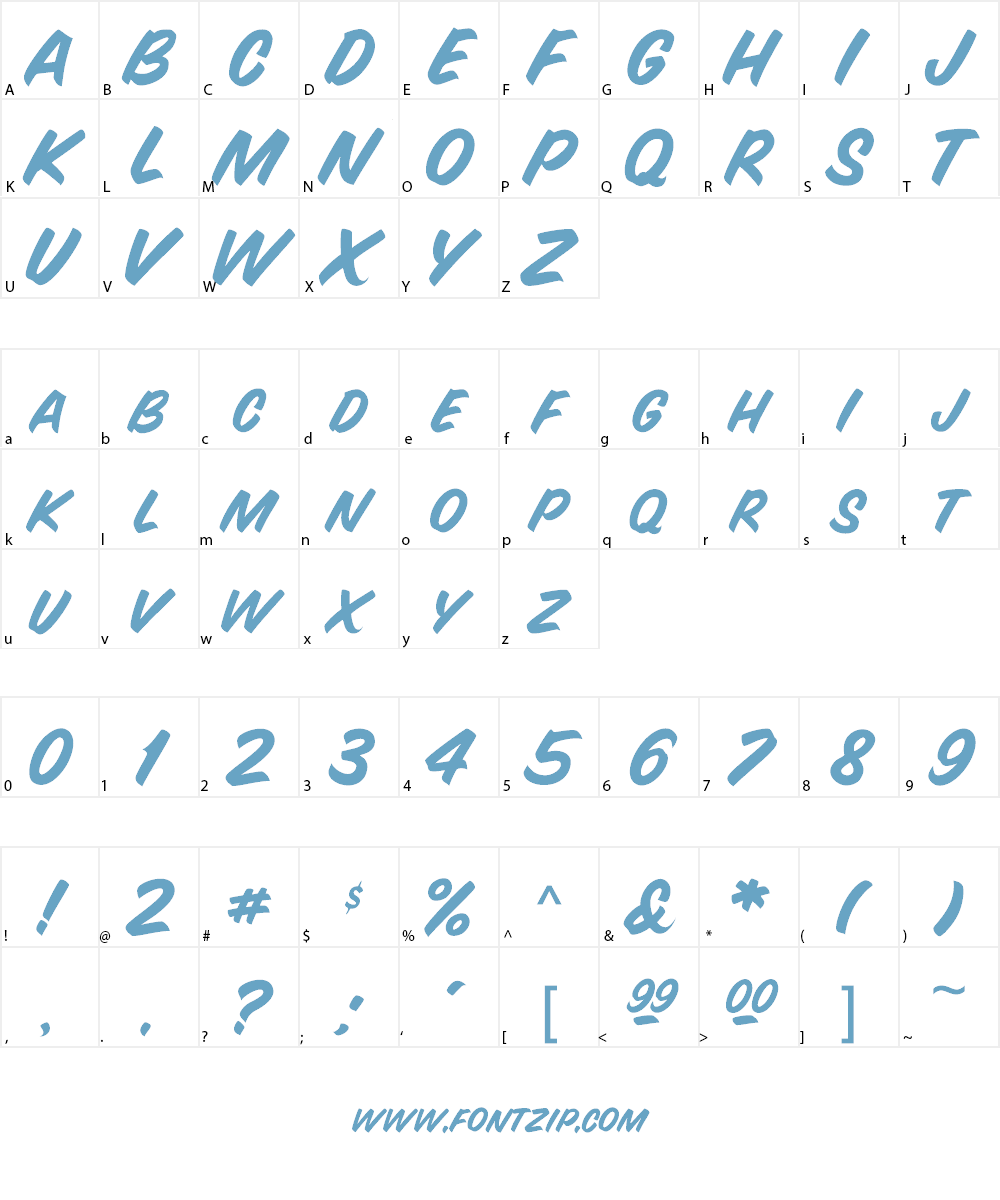
A sign painter for 50 years, my father taught me (among other alphabets/typefaces) the sign painter's bread and butter alphabet: Speed-brush lettering. After infinite hours of practice using paint with brush applied to rolls of banner paper while learning to recreate letters in sizes from one-inch up to two-foot high letters, this typeface served well when I was in the sign business in the 70s. I currently teach drawing, painting, printmaking, year book DTP, and commercial art to future artists, possibly typographers (alias) high school students; and produce serious art for local, regional and national juried exhibitions.
SnyderSpeed was my first attempt at recreating, a memorized sign-painting alphabets on the Mac. My wife dared me to apply my skills to the Mac she had begged me to buy her for Christmas in 1989. (Wasn't I a nice guy!). She works in DTP and claimed she could not find the brush stroke font she needed, at any price, anywhere.